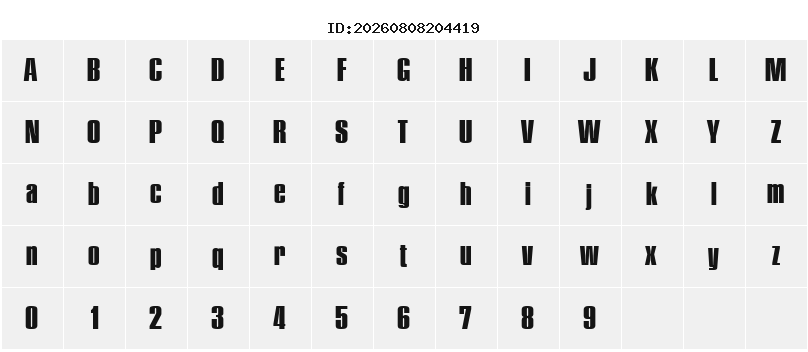
• Font Name: Plakette-Bold
• Full Font Name: Plakette-Bold
• PostScript Name: Plakette-Bold
About Plakette-Bold.ttf
Plakette-Bold.ttf is a modern, elegant sans-serif font designed for ultimate readability and visual harmony. Perfect for branding, headlines, web design, and print materials.